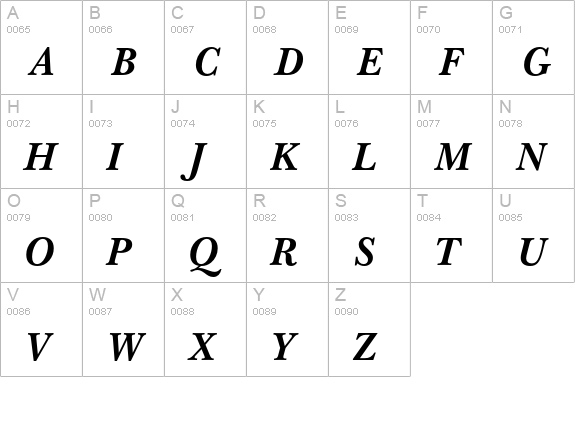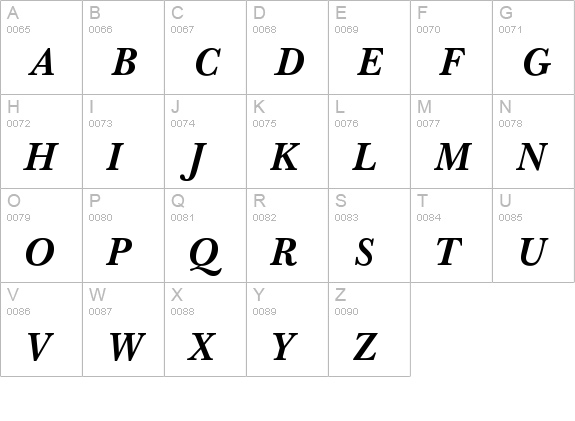
Baskerville No.2 Bold Italic Font Details
Baskerville No.2 Bold Italic is a strong, high-contrast, italic variant in the Baskerville typeface family \xE2\x80\x94 well suited to headlines, attention-grabbing titles, and strong calls-to-action.
Baskerville No.2 Bold Italic font exudes elegance and sophistication with its sleek and stylish design. The bold italic style adds a touch of modernity while maintaining the timeless appeal of the classic Baskerville typeface. This versatile font is perfect for creating eye-catching headlines, striking logos, and impactful designs. And the best part? Baskerville No.2 Bold Italic font is available for free download at FontsMarket.com. Whether you're a seasoned designer looking to add a new font to your collection or a beginner exploring typography for the first time, this font is a must-have for your creative projects. Download it today and elevate your designs with the timeless beauty of Baskerville No.2 Bold Italic font.